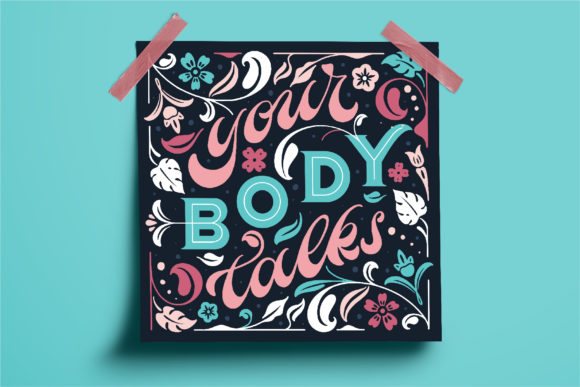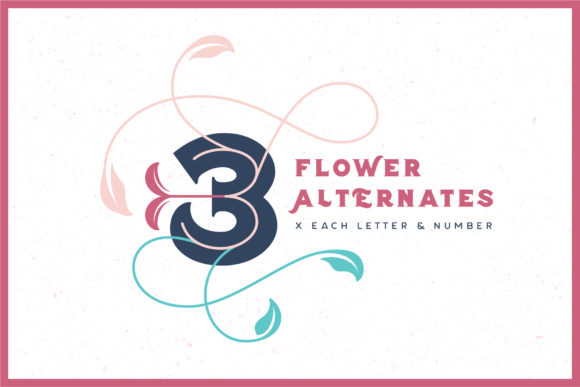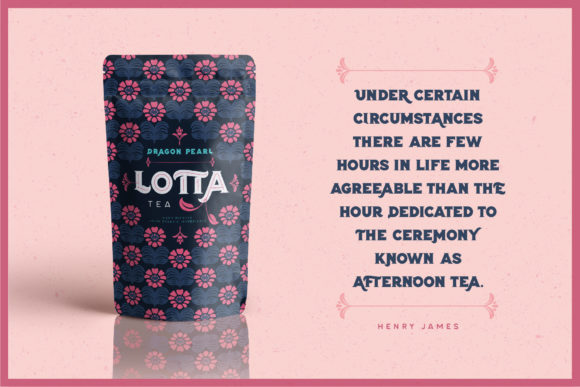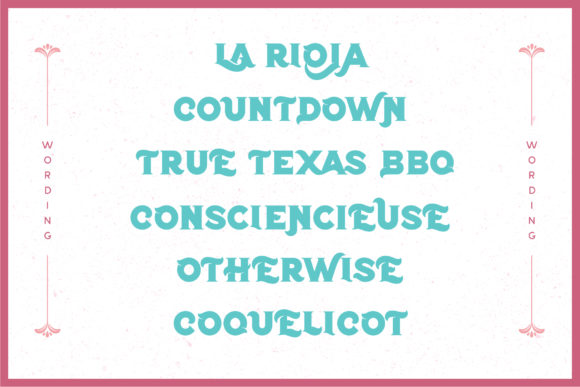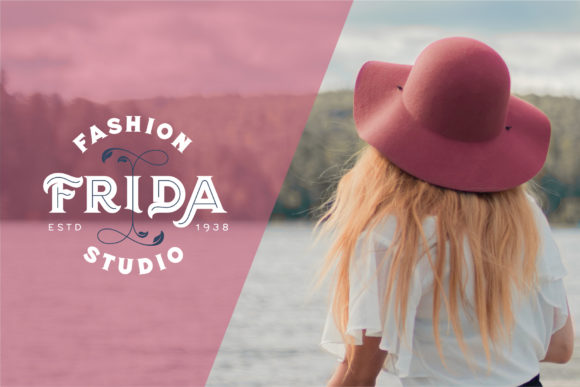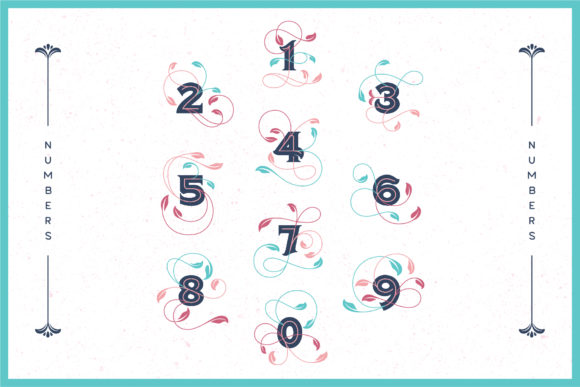
The Designer’s Dream: A Deep Dive into Flor Font
I still remember the frustration of working on a client project, searching for the perfect font to match the brand’s personality. The brief was simple: elegant, sophisticated, and with a touch of whimsy. Hours of scrolling through font libraries, and I still hadn’t found “the one.” That’s when I stumbled upon Flor Font, and my design woes disappeared. In this article, I’ll share my love for this gorgeous display font, its features, and how to make the most of it in your designs.
An Honest Review of Flor Font
- ✨ 6 Unique Font Styles: From elegant scripts to bold, statement-making fonts, Flor Font offers a range of styles to suit any design project.
- ✅ Over 540 Glyphs: With an extensive character set, you can create beautiful, custom text arrangements that fit your brand’s voice.
- 🌼 28 Gorgeous Floral Ornament Illustrations: Add a touch of elegance and sophistication to your designs with these stunning illustrations.
- 🔗 26 Ligatures: Create beautiful, flowing text with Flor Font’s ligatures, perfect for titles, headings, and more.
While Flor Font is an amazing design tool, there are a few things to keep in mind:
- 🤔 Learning Curve: With so many features and glyphs, it may take some time to get familiar with Flor Font’s capabilities.
- ⚠️ Font Size Limitations: Some font styles may not be suitable for very small font sizes, so be sure to test and adjust accordingly.
The Story Behind Flor Font
Flor Font was designed with the creative professional in mind. The designer’s goal was to create a font that would be both elegant and versatile, suitable for a range of design projects. Inspired by the beauty of flowers and the art of typography, Flor Font was born. With its stunning floral ornament illustrations and extensive character set, it’s no wonder Flor Font has become a favorite among designers.
| Is Flor Font suitable for body text? | While Flor Font is a beautiful display font, it’s not recommended for body text due to its ornate nature. |